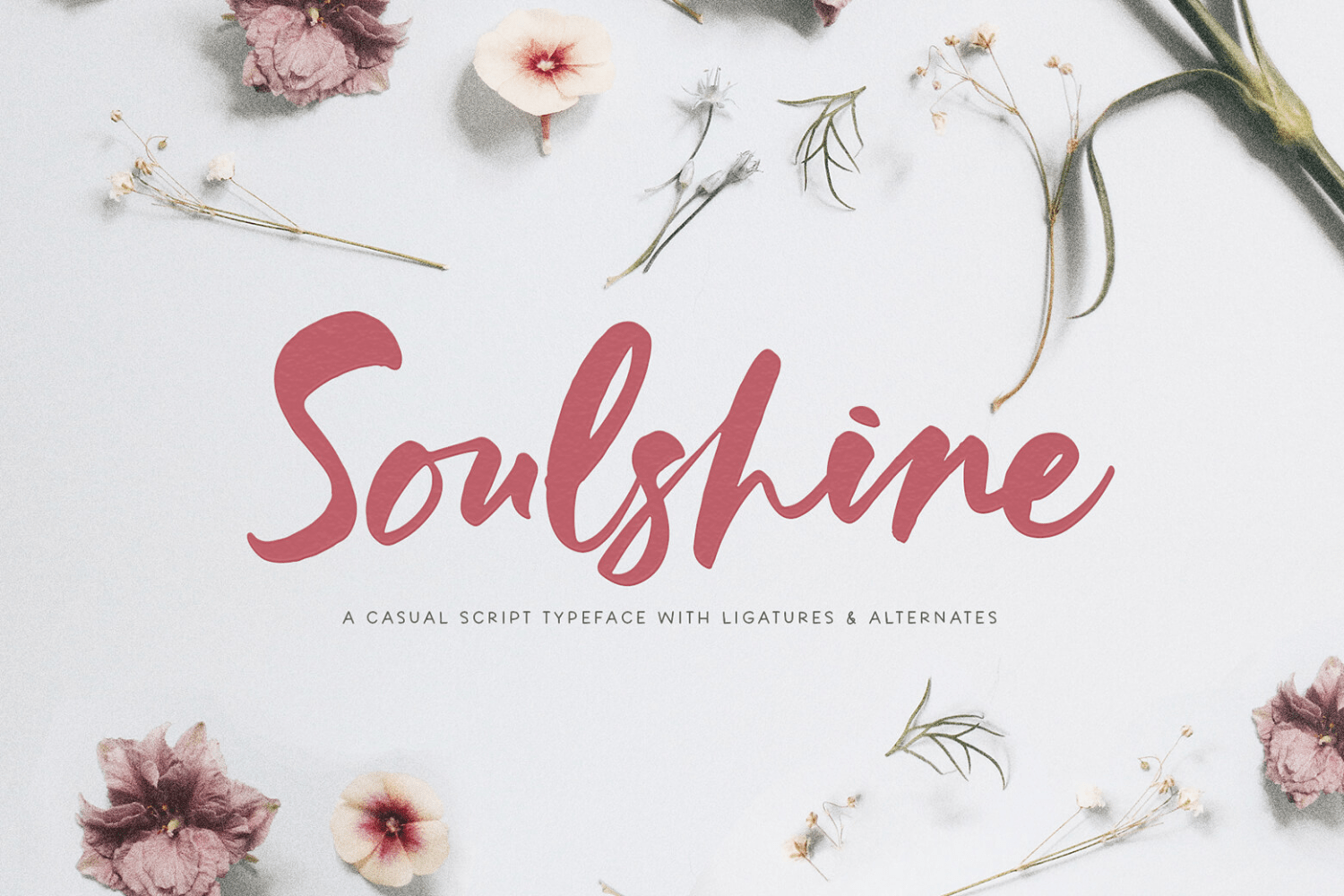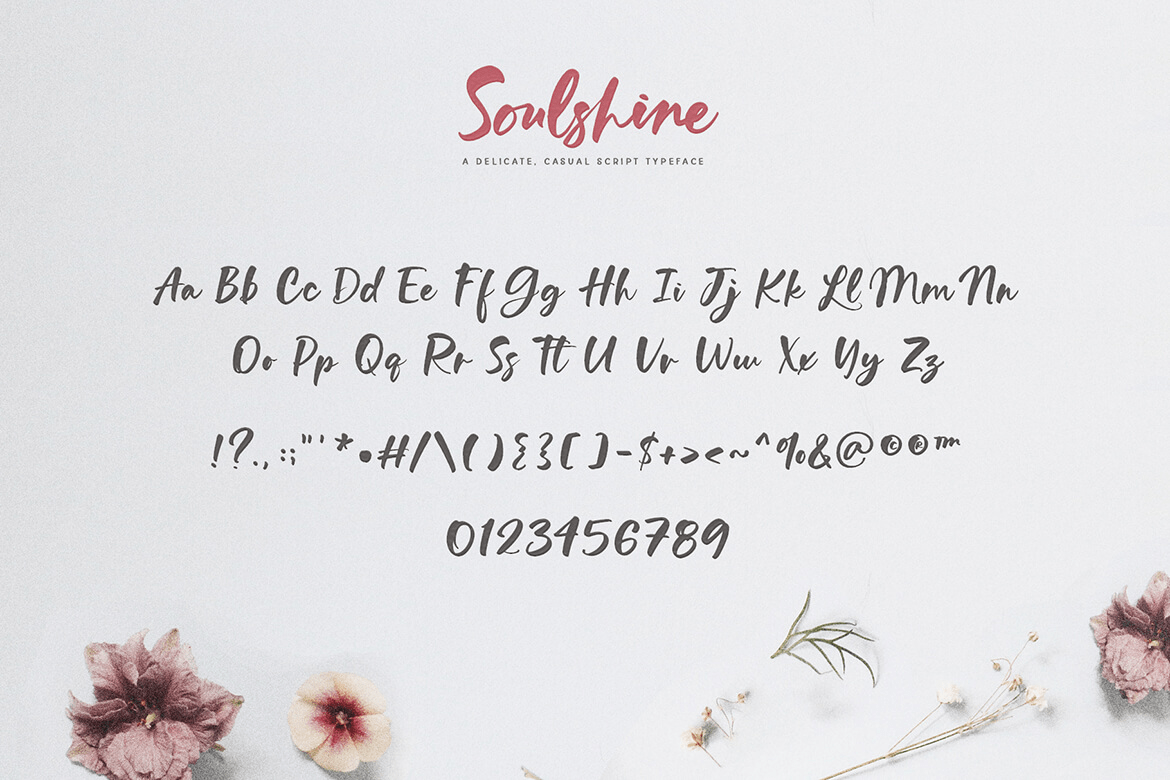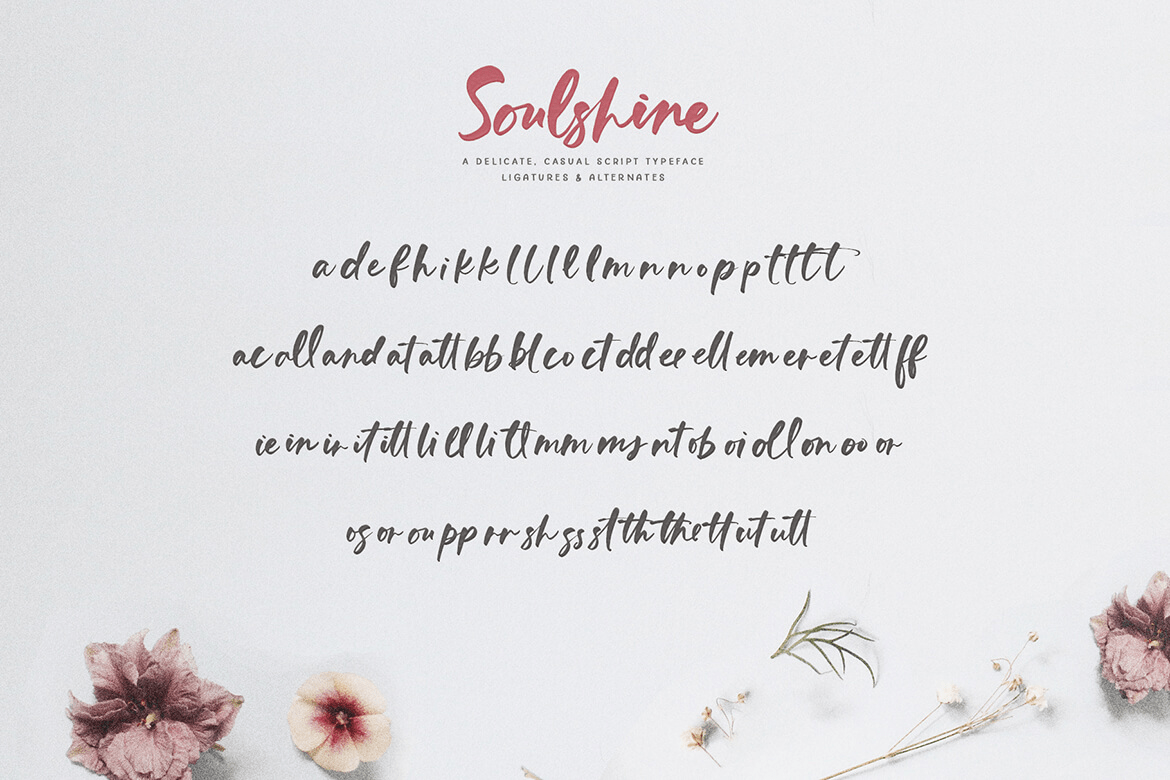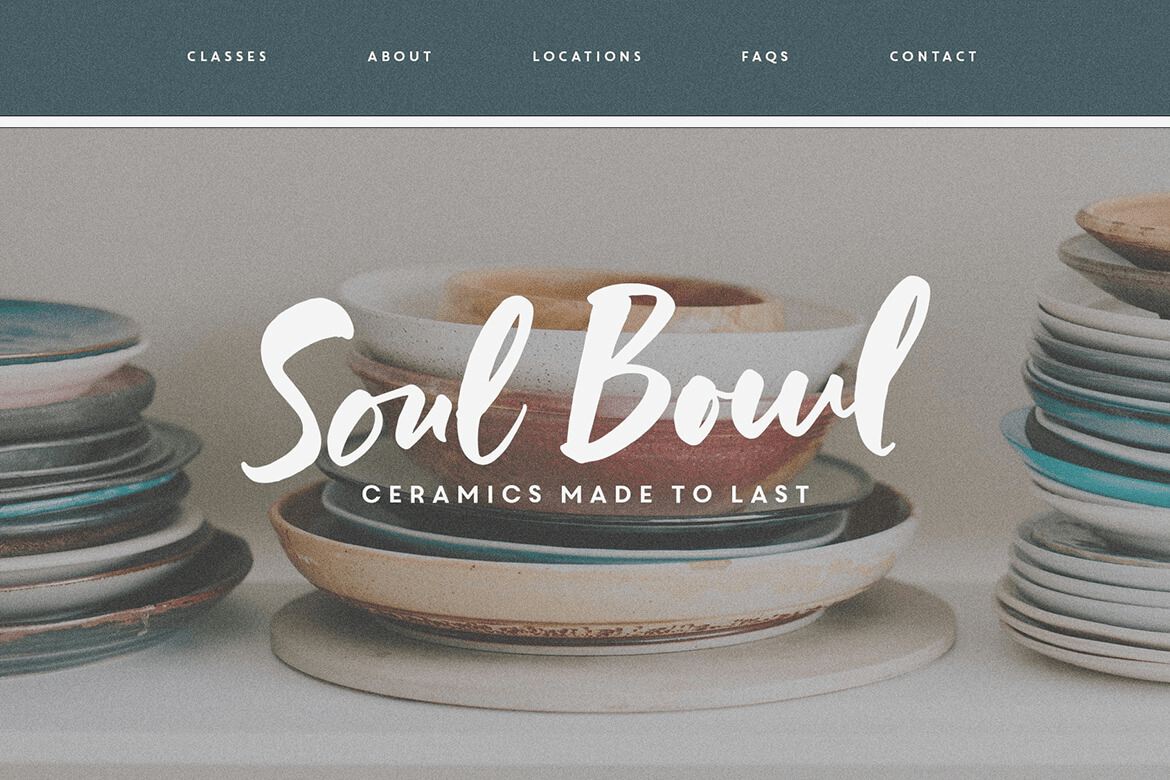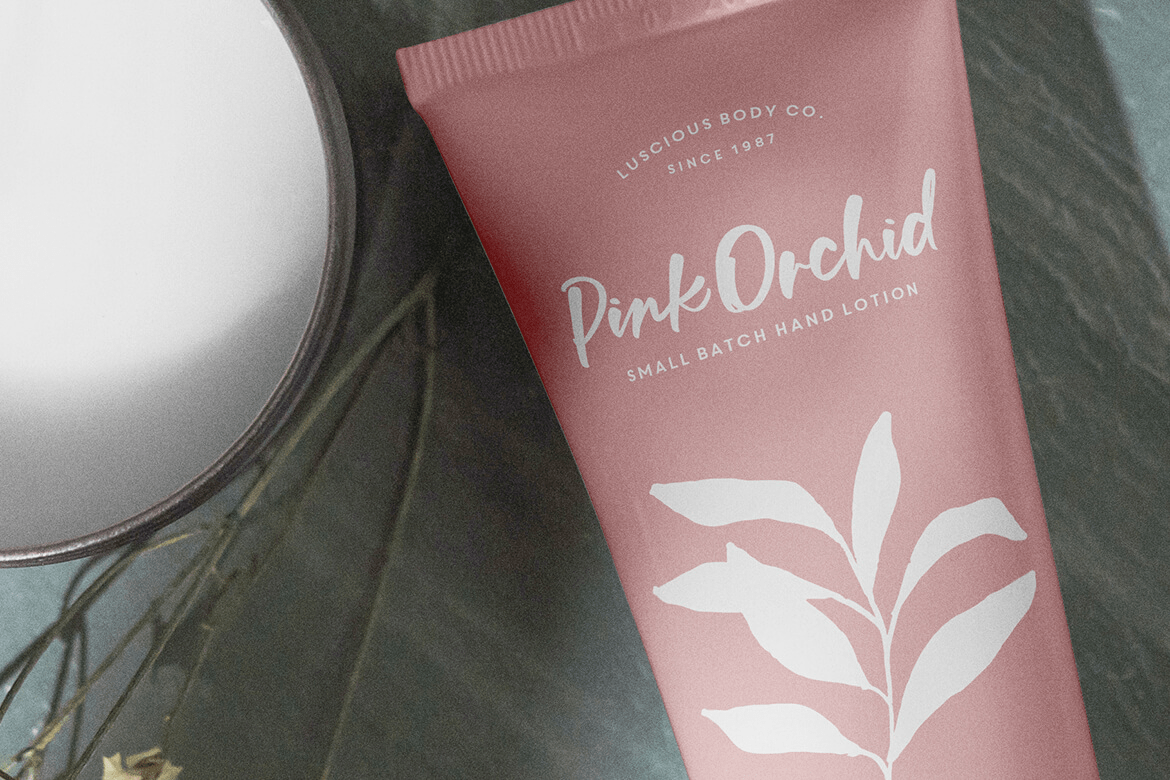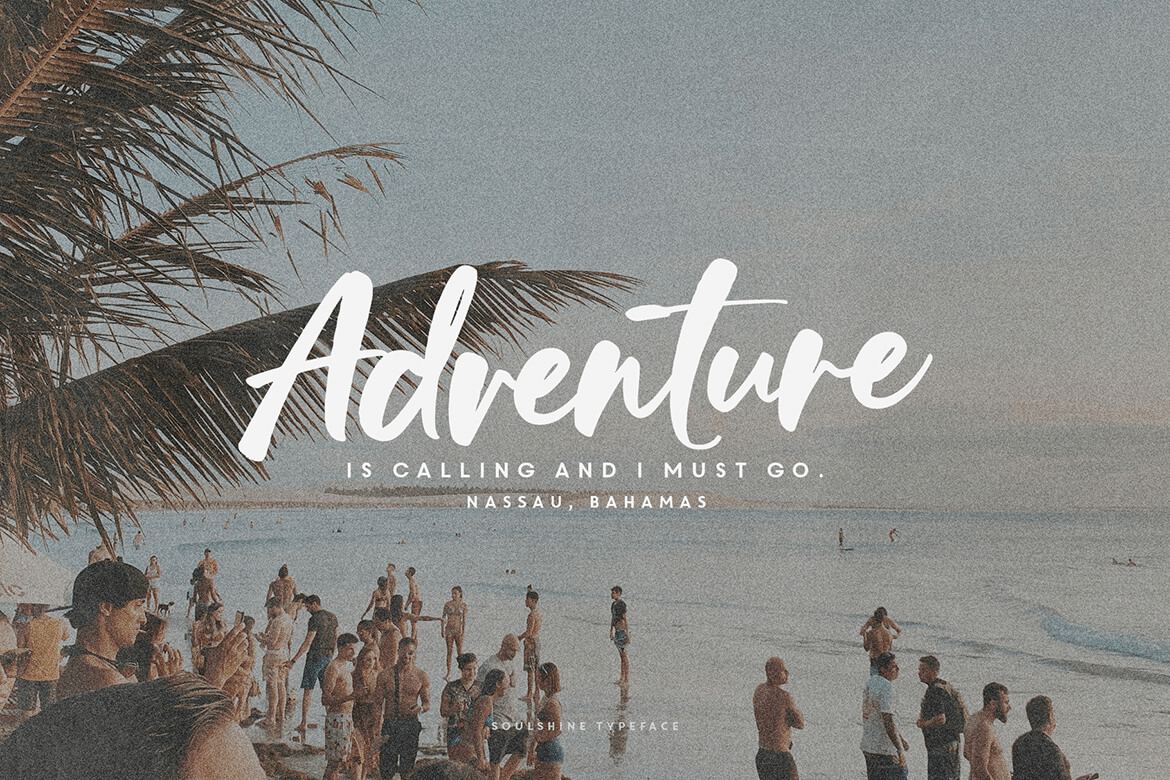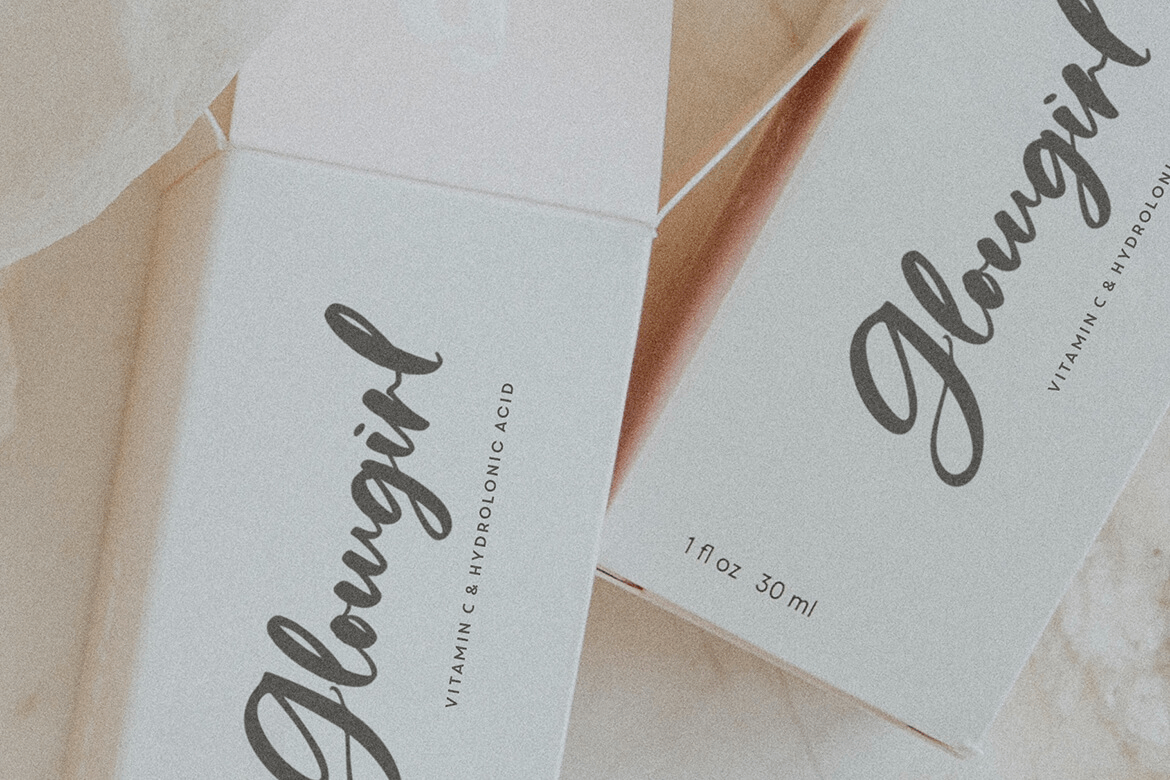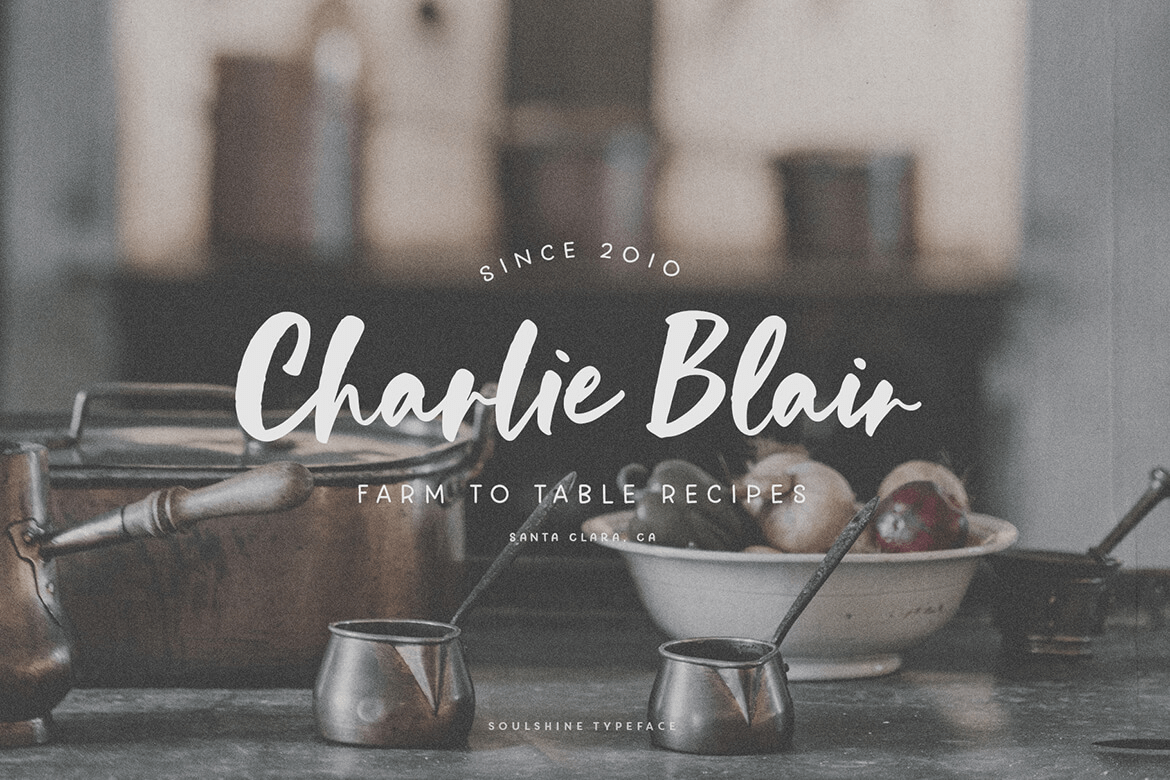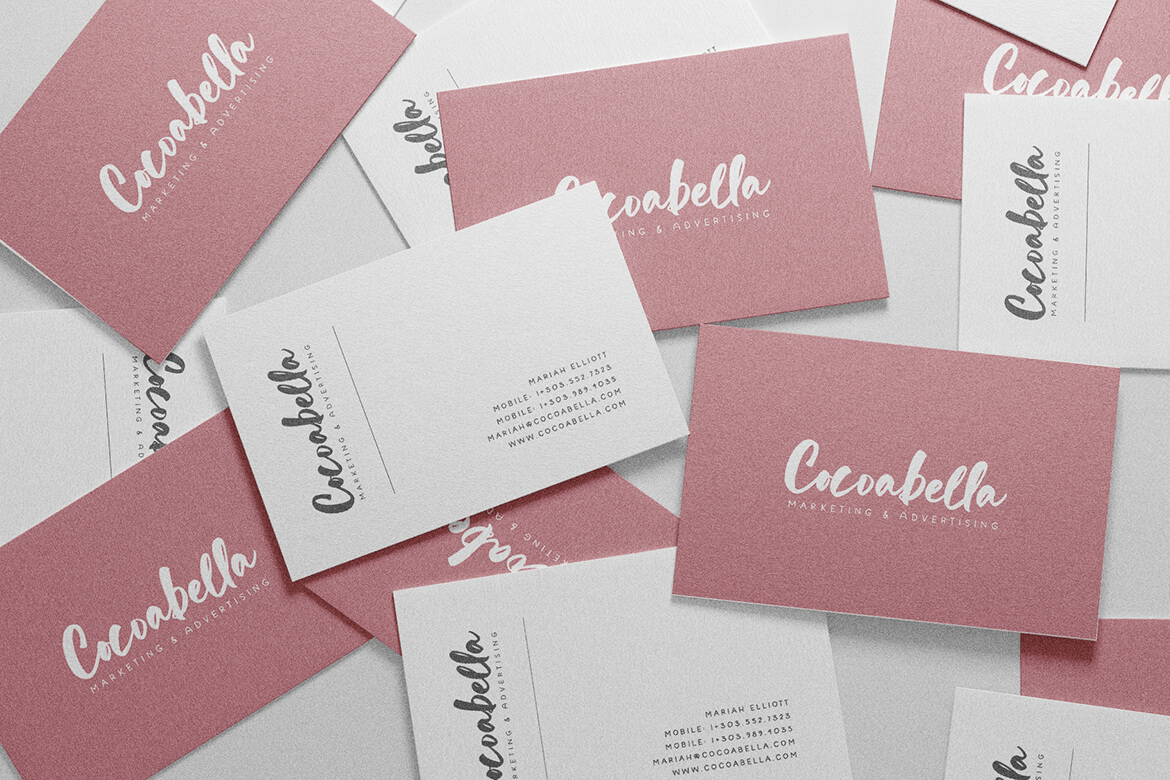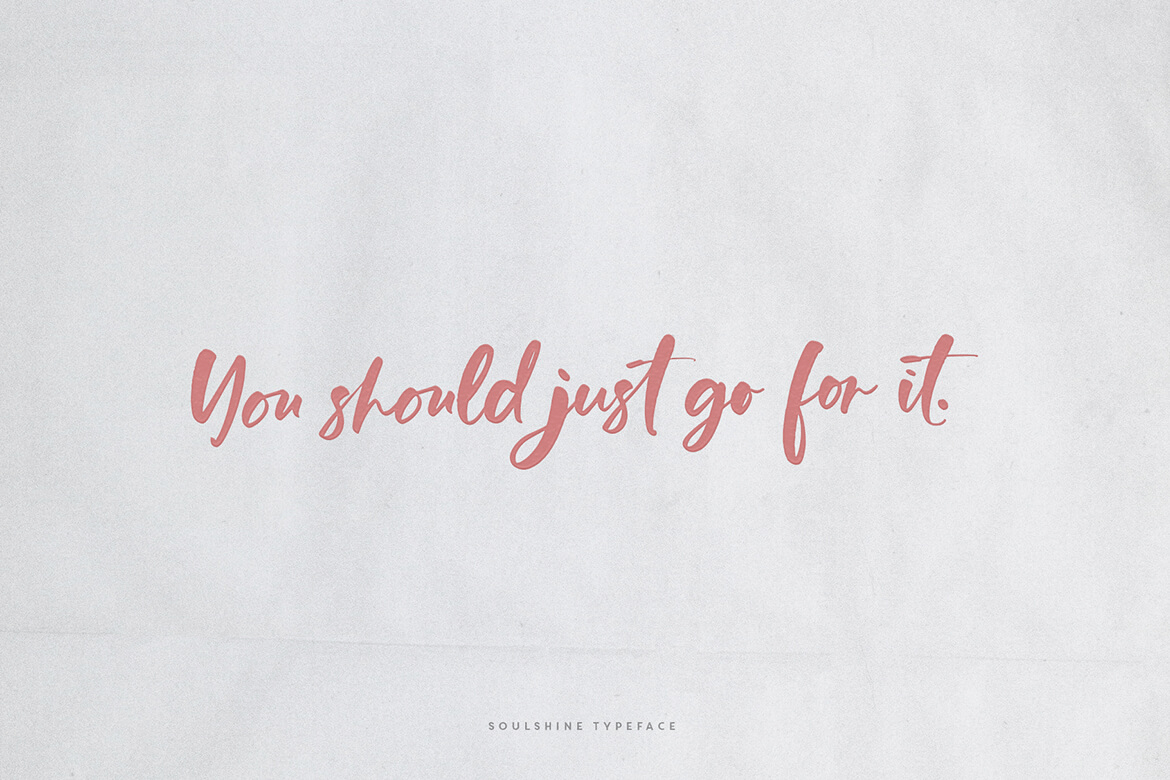
Soulshine
Introducing Soulshine, a thick, casual script with loads of ligatures and alternates! Use on headlines, websites, products, packaging, business cards, quotes, totes, stickers, logos, branding and so much more! It's fun, but oh so legible, and is the perfect complement to so many projects! Soulshine Script comes in OTF, TTF & WOFF versions with Western European language support and over 70 ligatures and alternates.